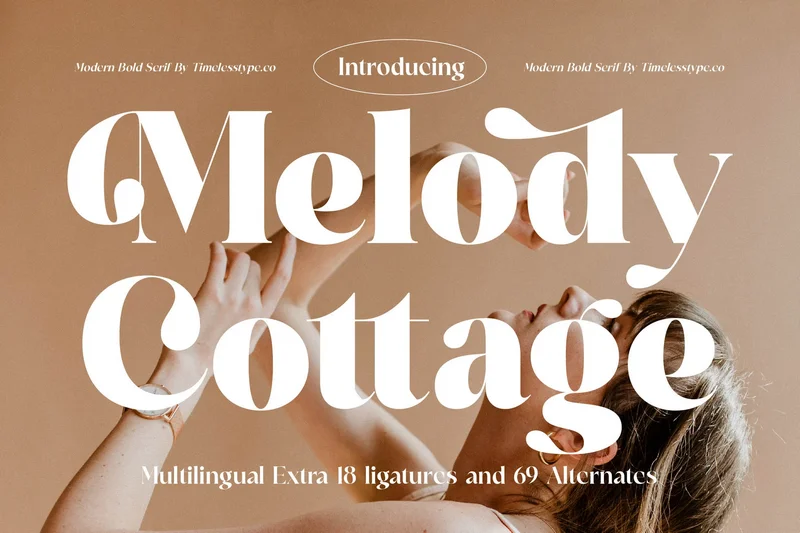
Melody Cottage – Modern Bold Serif
Melody Cottage is a modern bold serif font that combines elegance and charm with bold sophistication. Its stylish ligatures and refined alternates give every letter a unique personality, making it perfect for branding, logos, packaging, invitations, editorials, and fashion projects. With a timeless yet contemporary design, Melody Cottage adds a touch of luxury and creativity to any digital or print work.